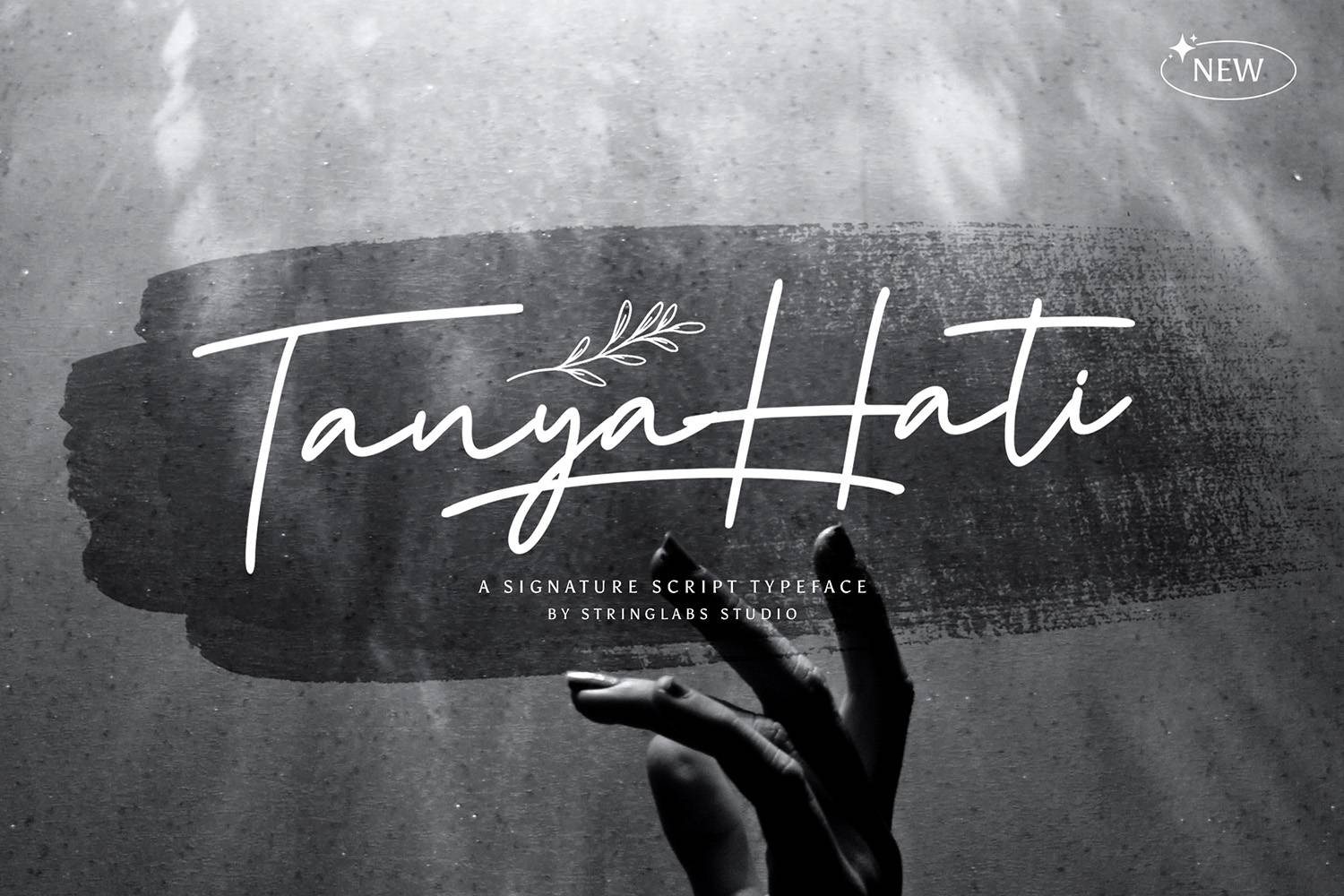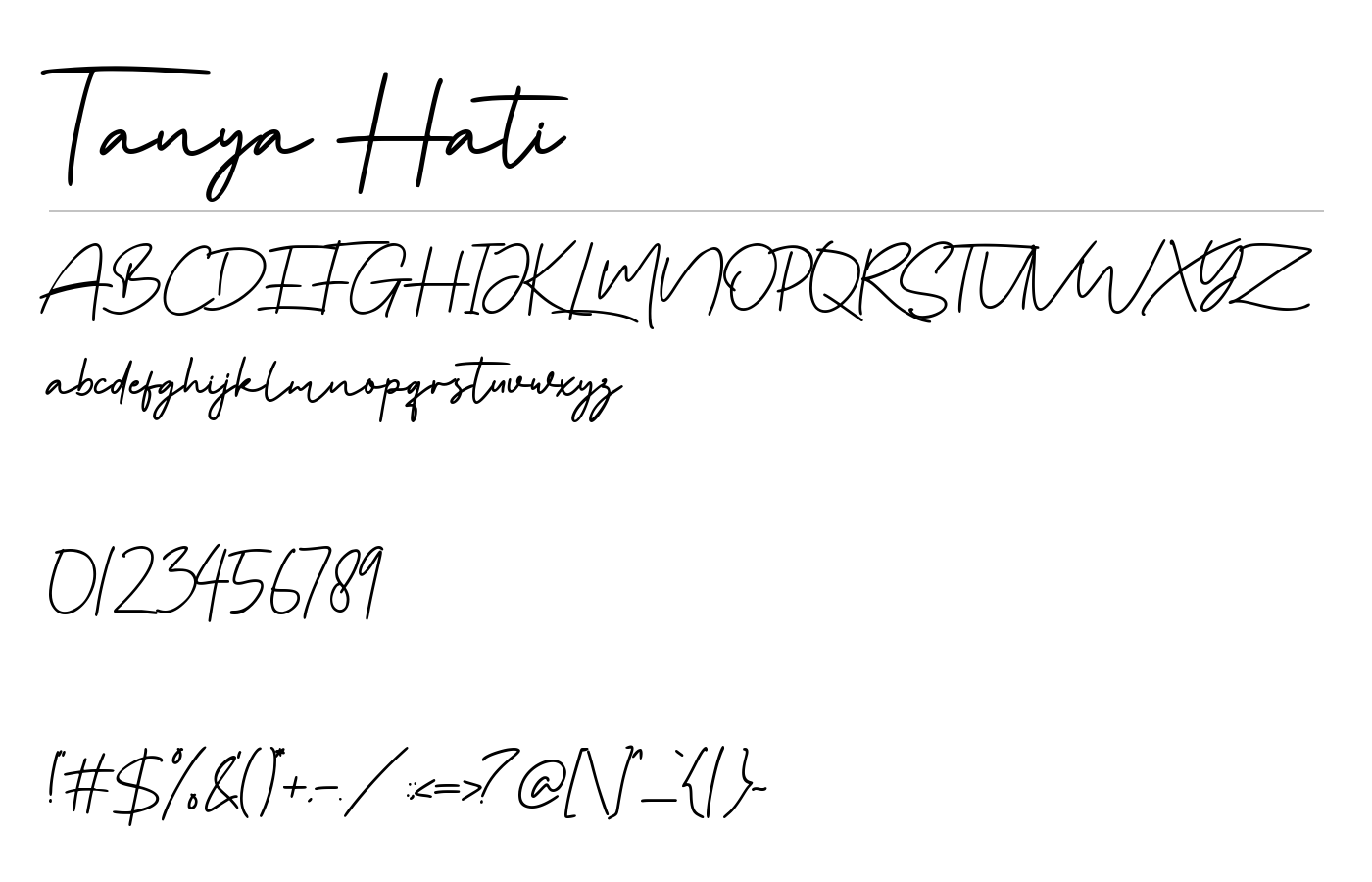
Tanya Hati is a thin, elegant handwritten script font characterized by its flowing, natural strokes and casual yet refined appearance. Its light weight and slightly tall x-height give it a delicate, airy feel, making it perfect for personal branding, wedding invites, and stylish editorial work where a touch of warmth and sophistication is desired. This font’s playful yet polished look works great in logos, headlines, and creative projects that seek a human, approachable vibe.
Tanya Hati Font
About Tanya Hati Font